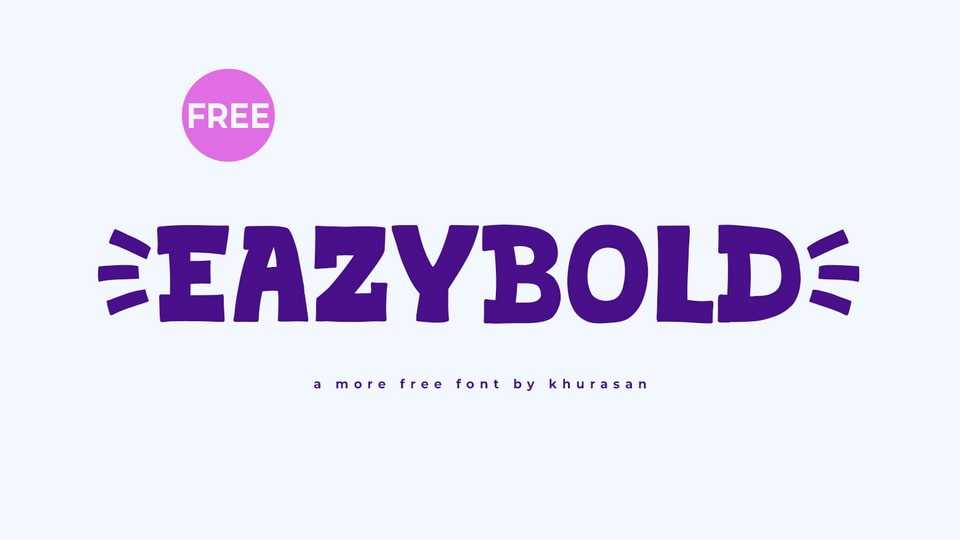
Download Eazybold font, a bold and playful cartoon typeface that brings your text to life with a burst of vibrant energy and cheerful charm. With its lively curves and exuberant design, Eazybold font is the perfect companion for children’s books, playful branding.